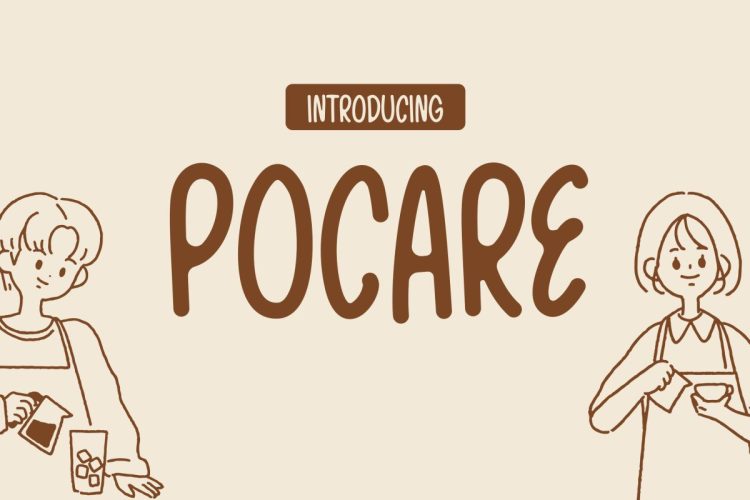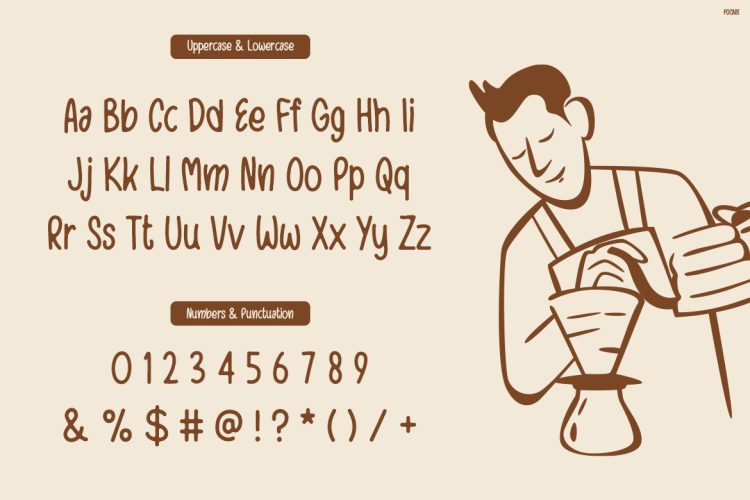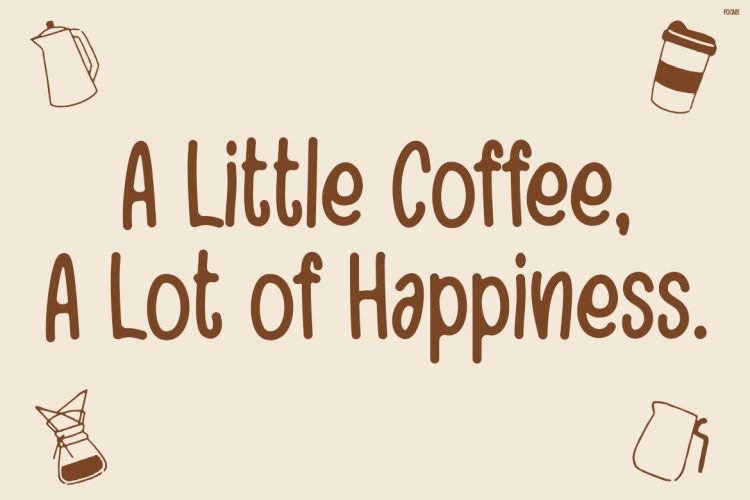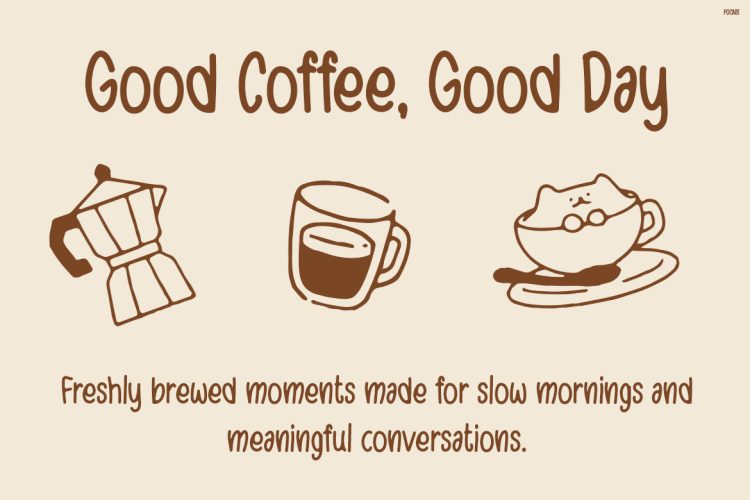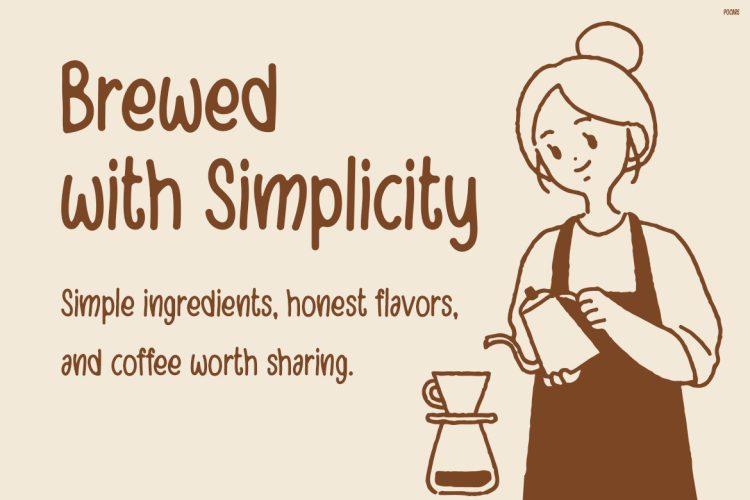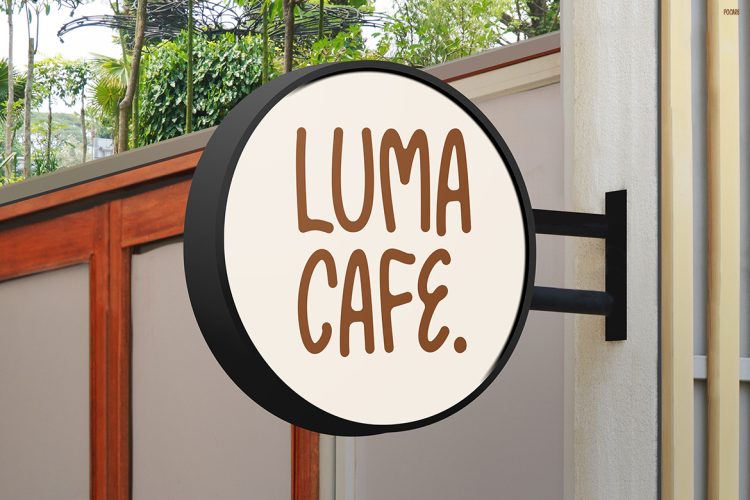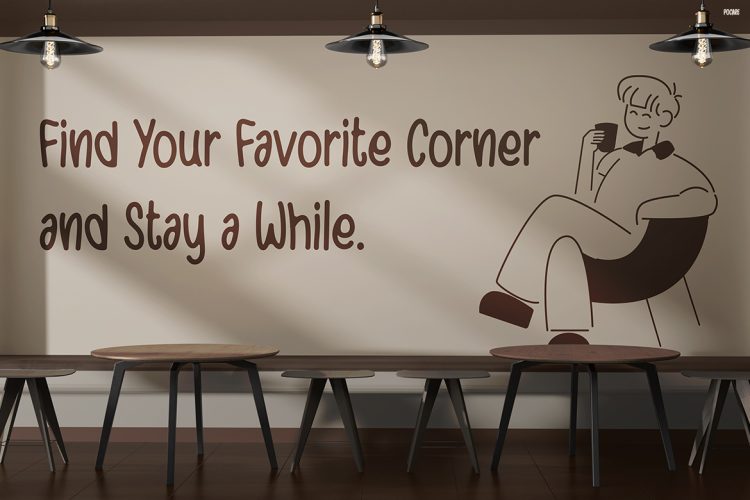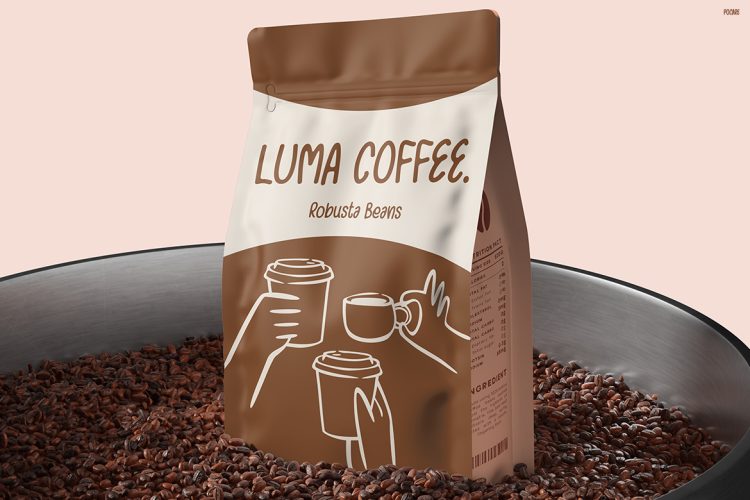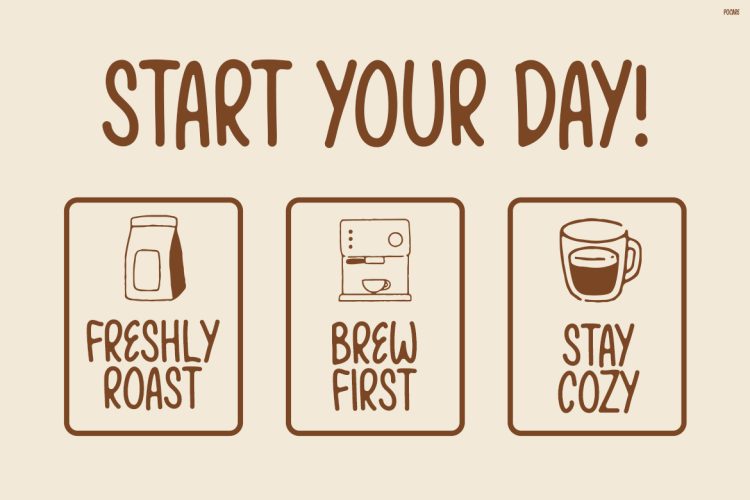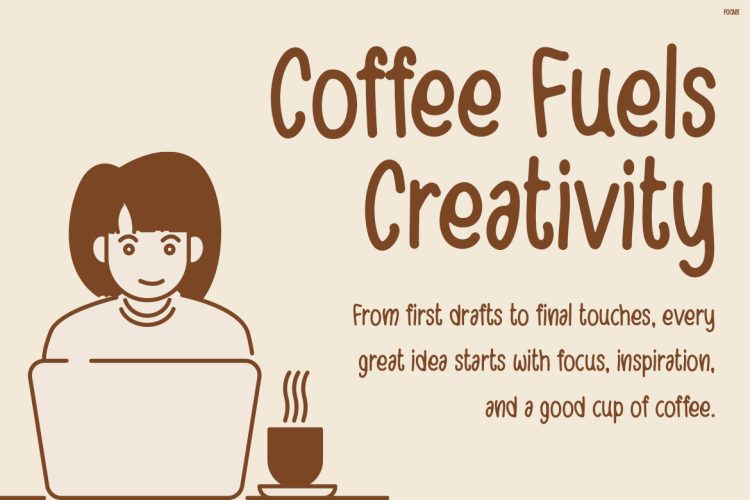
Kids Font Pocare โ Cozy Coffeehouse Kids Font
Kids Font Pocare is a charming handwritten display font that blends playful creativity with a cozy, handcrafted feel. Inspired by cafรฉ culture and friendly illustrations, this font features soft curves, organic shapes, and a warm personality that instantly makes designs feel inviting. Moreover, its casual handwritten style creates an authentic and approachable look. At the same time, its clean structure ensures excellent readability. As a result, every headline feels friendly, memorable, and full of charm. Whether you’re designing for children, cafรฉs, or creative brands, Kids Font Pocare adds warmth and personality to every project.
Kids Font Pocare Made for Creative & Friendly Designs
Pocare combines fun character with everyday versatility. Furthermore, its playful appearance helps create emotional connections with audiences. Not only does it stand out visually, but it also brings a relaxed and welcoming atmosphere to your designs. Consequently, it works beautifully across branding, packaging, and promotional materials. Meanwhile, its handcrafted aesthetic gives projects a unique and personal touch. Therefore, it is an excellent choice for designers who want a font that feels both fun and genuine.
Who Is It For?
Perfect for:
- Children’s brands and products
- Coffee shops and cafรฉ branding
- Food and beverage packaging
- Teachers and educational projects
- Small business owners
- Social media creators
- Handmade product brands
- Graphic designers and illustrators
Additionally, it works great for logos, menus, posters, stickers, packaging, invitations, and merchandise. Likewise, it fits both digital and print applications with ease.
Add Warmth to Every Design
Kids Font Pocare is more than a fontโit is a creative tool that helps your designs feel welcoming, playful, and memorable. Furthermore, its unique handwritten style makes every project more engaging. So, if you’re looking for a font packed with charm, personality, and versatility, Pocare is ready to become your next favorite typeface.